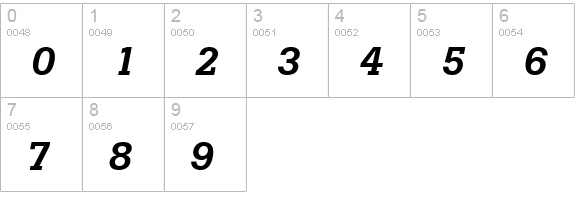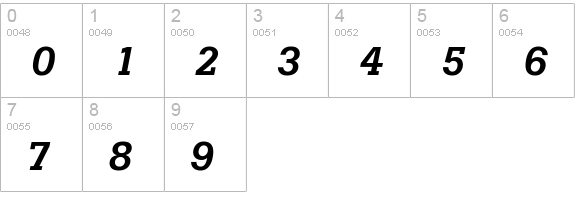
Boton Medium Italic Font Details
Boton Medium Italic is a balanced, medium-weight, italic variant in the Boton typeface family \xE2\x80\x94 well suited to sub-headlines, navigation, and balanced editorial work.
Introducing Boton Medium Italic font - a versatile and elegant typeface that strikes the perfect balance between sophistication and modernity. The medium weight and italic style of Boton create a unique and eye-catching aesthetic that is perfect for a wide range of design projects. Whether you are working on branding, marketing materials, or editorial layouts, Boton Medium Italic font will add a touch of refinement to your work. And the best part? Boton Medium Italic font is available for free download at FontsMarket.com. This means you can easily access this high-quality font and elevate your designs without breaking the bank. Don't miss out on the opportunity to enhance your projects with the timeless appeal of Boton Medium Italic font. Download it today and start creating stunning visuals that stand out from the crowd.